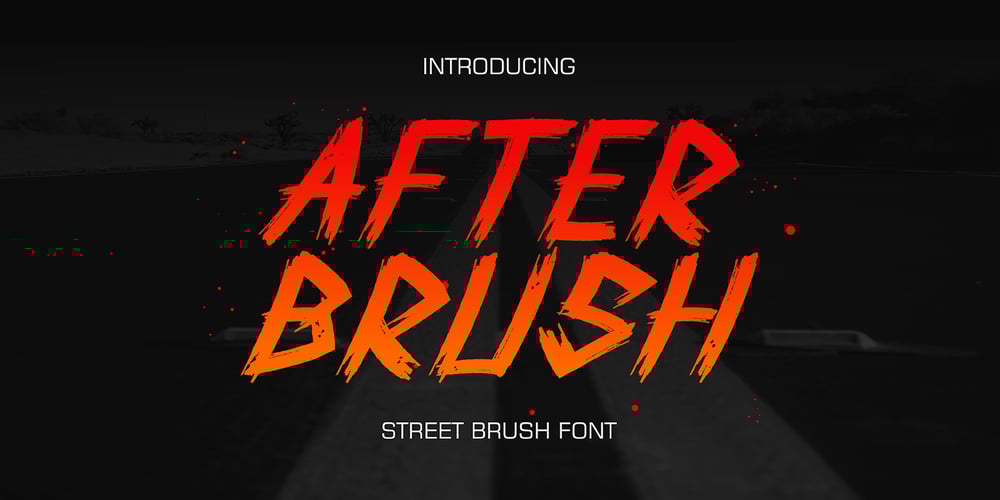
After Brush Graffiti
After Brush Graffiti font
After Brush Graffiti Font Family was designed by Sipanji and published by Sipanji21. After Brush Graffiti contains 1 styles and family package options. Hello, this is After Brush – Realistic Awesome Monoline Display Font!This font designed so that users can use it more easily and make Monoline designs easier. After Brush is very suitable for use in various media such as; packaging, logos, labels, posters, shirt designs, bulletins, typography, and many other media, especially with Monoline look.